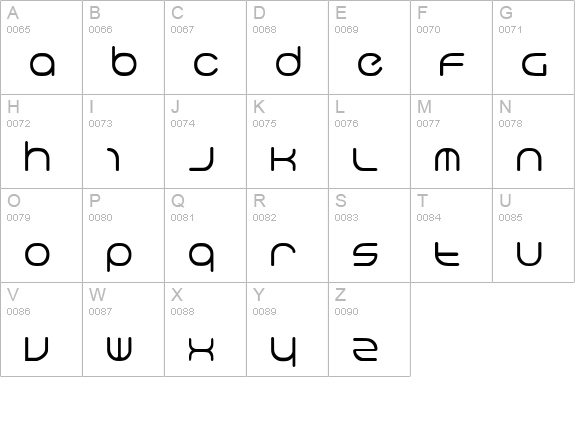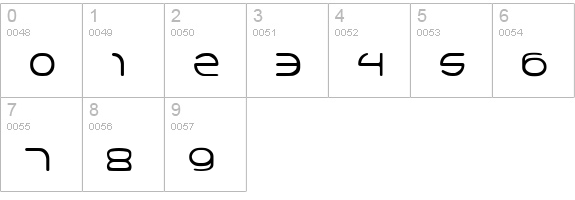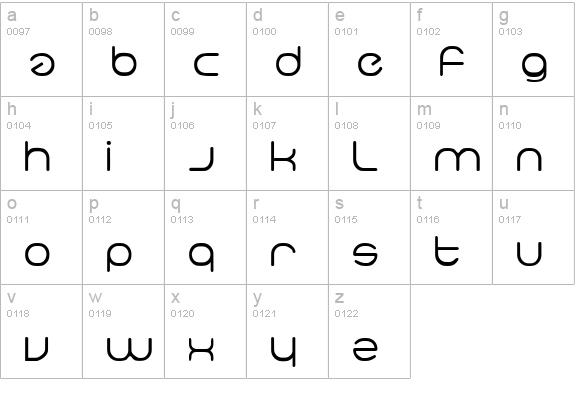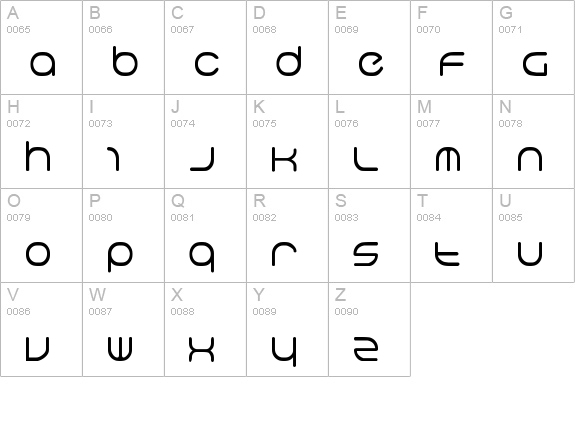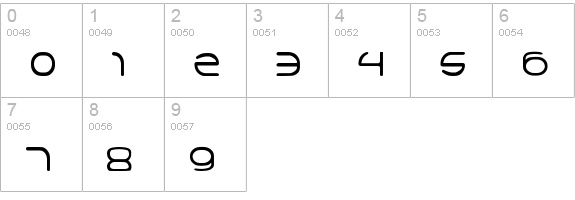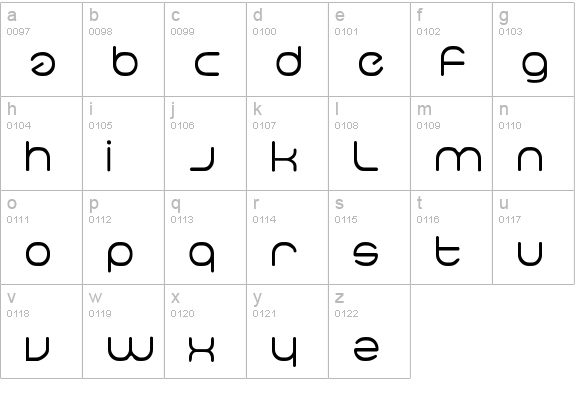
NeoGeo_TR Font Details
NeoGeo_TR is a modern and sleek font that exudes a sense of futuristic elegance. With its clean lines and sharp edges, this font is perfect for adding a touch of sophistication to any design project. The geometric shapes of NeoGeo_TR give it a bold and contemporary look that is sure to make a statement. Whether you are designing a website, creating promotional materials, or working on a branding project, NeoGeo_TR is a versatile font that will elevate your work to the next level. The best part about NeoGeo_TR is that it is completely free to download at FontsMarket.com. This means that you can add this stylish font to your collection without any cost, making it a valuable asset for any designer. So why wait? Download NeoGeo_TR today and start incorporating its modern flair into your projects.